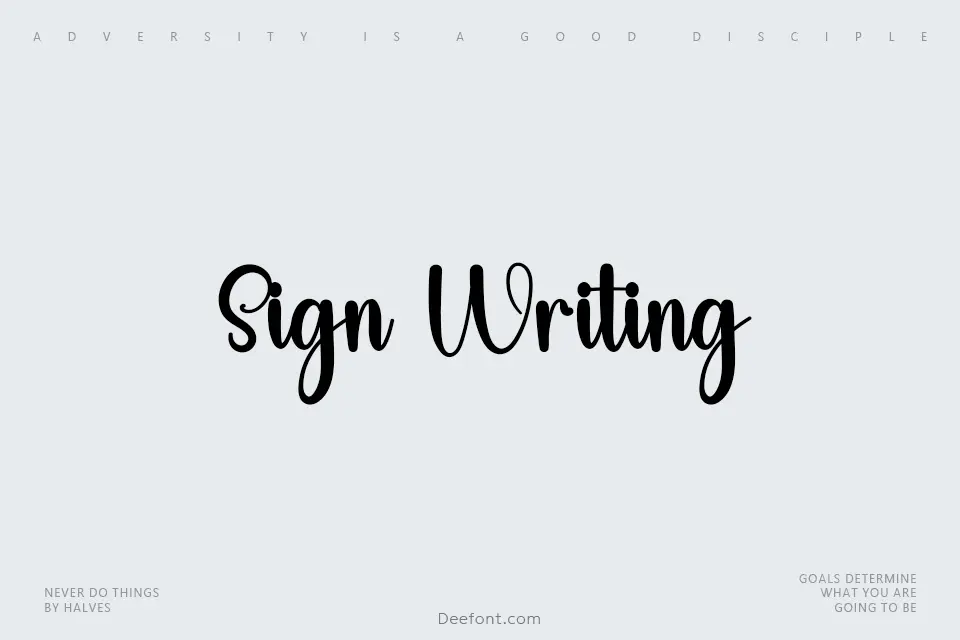
Sign Writing Font
Sign Writing Font is a captivating handwritten script typeface that captures the natural flow and authentic character of genuine hand-lettering. With its fluid, organic strokes and seamless letter connectivity, this font exudes artistry and personal expression, making it ideal for logos, branding projects, poster titles, invitations, packaging design, and editorial layouts. The font’s versatile design adds a touch of handcrafted quality and timeless appeal to projects requiring a warm, artistic aesthetic. Featuring 116 glyphs, it delivers both visual impact and sophistication for creative applications.